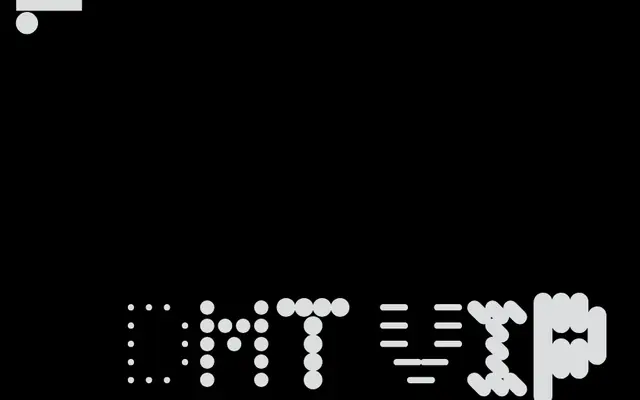
LL DMT VAR specimen from Lineto
A variable typeface from Lineto rooted in the early 1990s desktop publishing era and the raw aesthetic of matrix printers and low-resolution display technologies.
Lineto's interest in the discarded technologies of the late 1980s and early 1990s forms the conceptual backbone here, drawing on the visual language of thermo-printing devices and matrix printers rather than the polished typefaces that came with the Apple OS. The VAR designation indicates a variable font format, extending the expressive range of a family already defined by its lo-fi origins. The specimen text, drawn from academic writing on psychedelic microdosing, reinforces the typeface's association with countercultural and fringe-scientific territory.
The typeface sits firmly in the experimental/display category, rooted in Lineto's early 1990s interest in low-resolution printing technologies and the raw aesthetic of matrix printers and primitive thermo-printing devices, resulting in a distinctly unconventional letterform style.